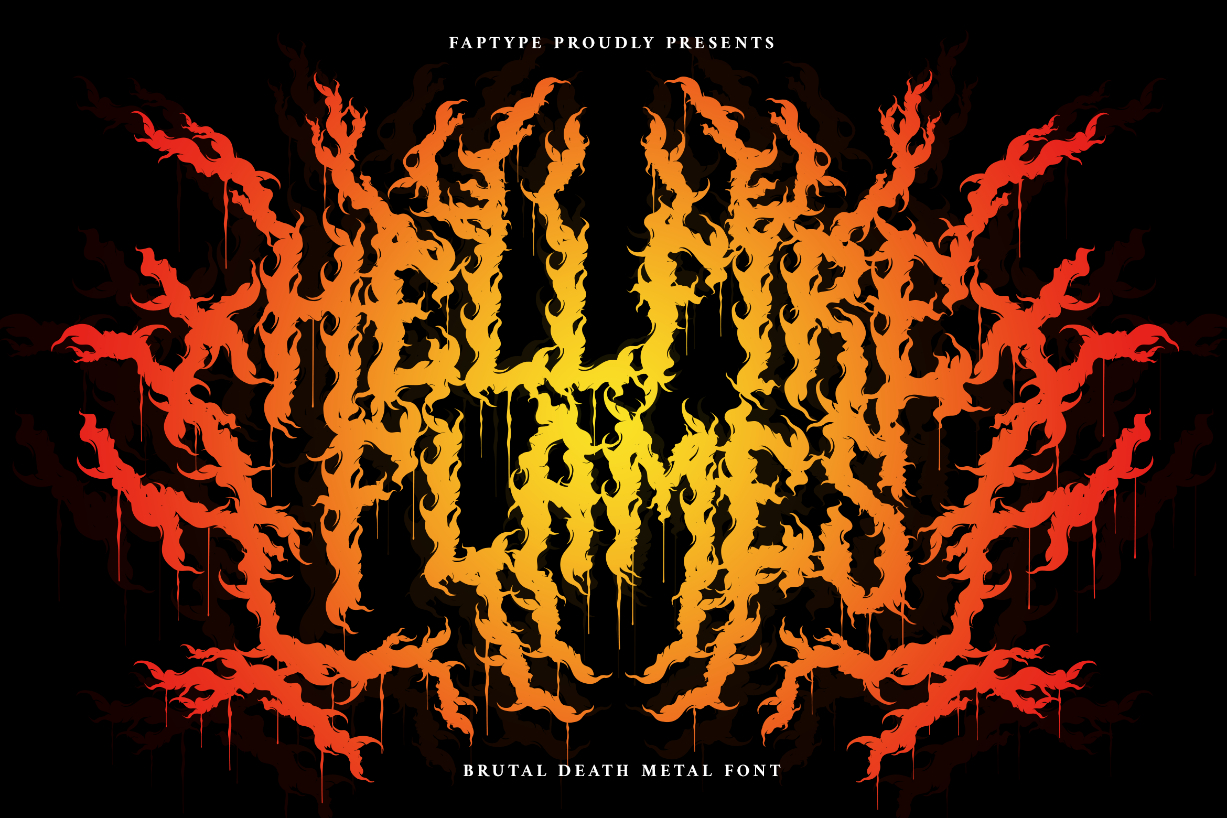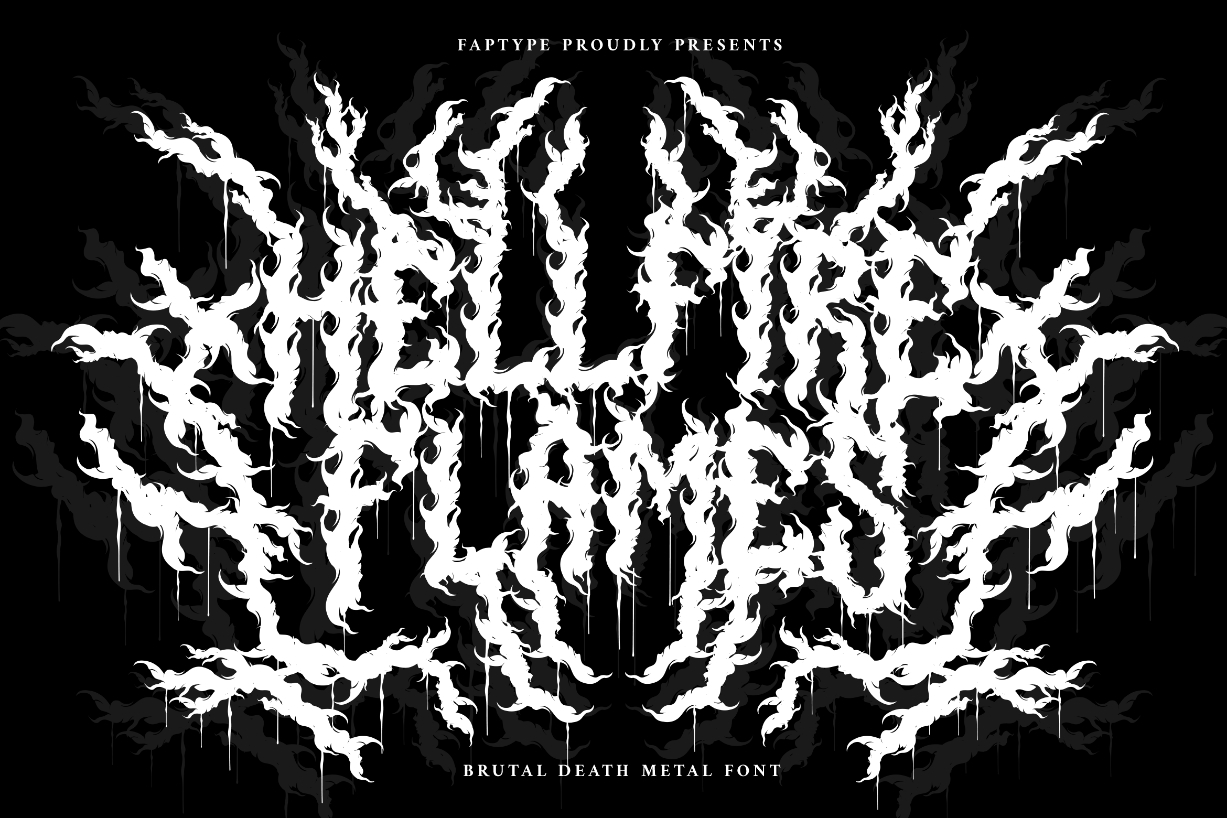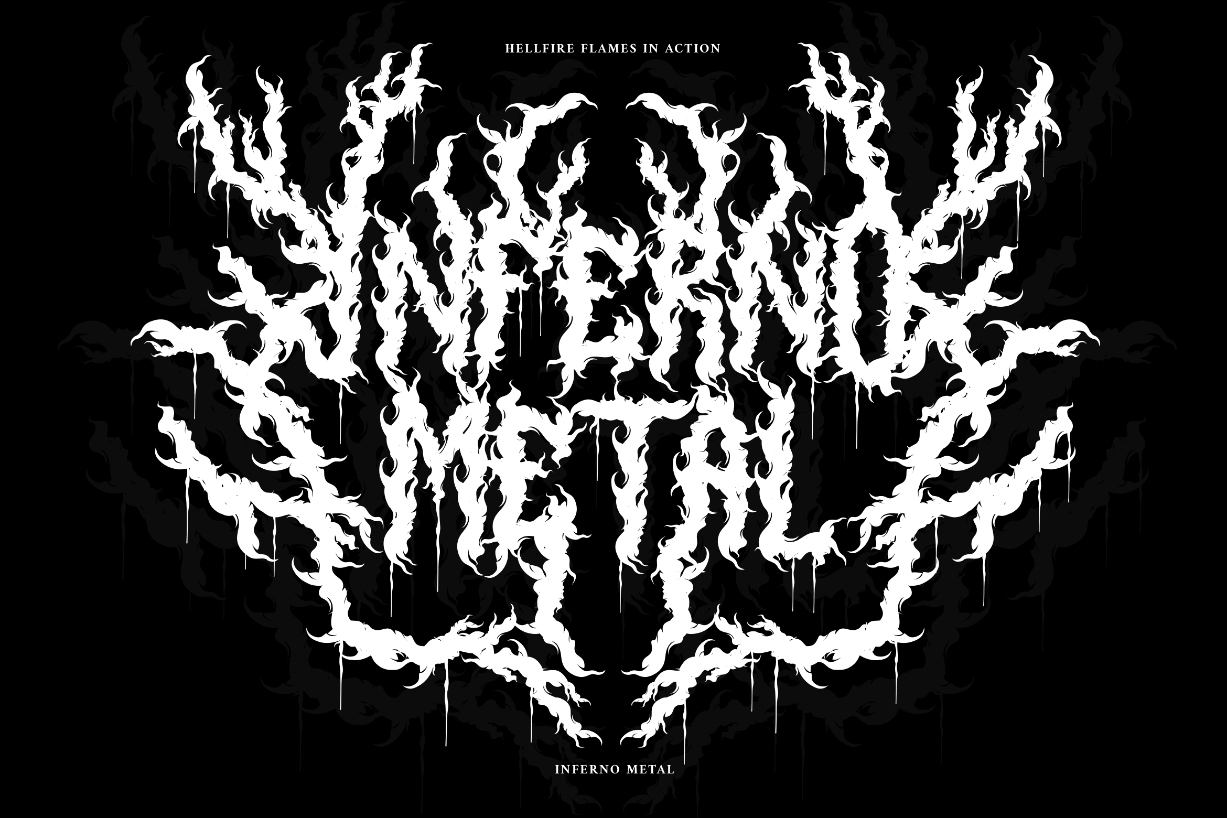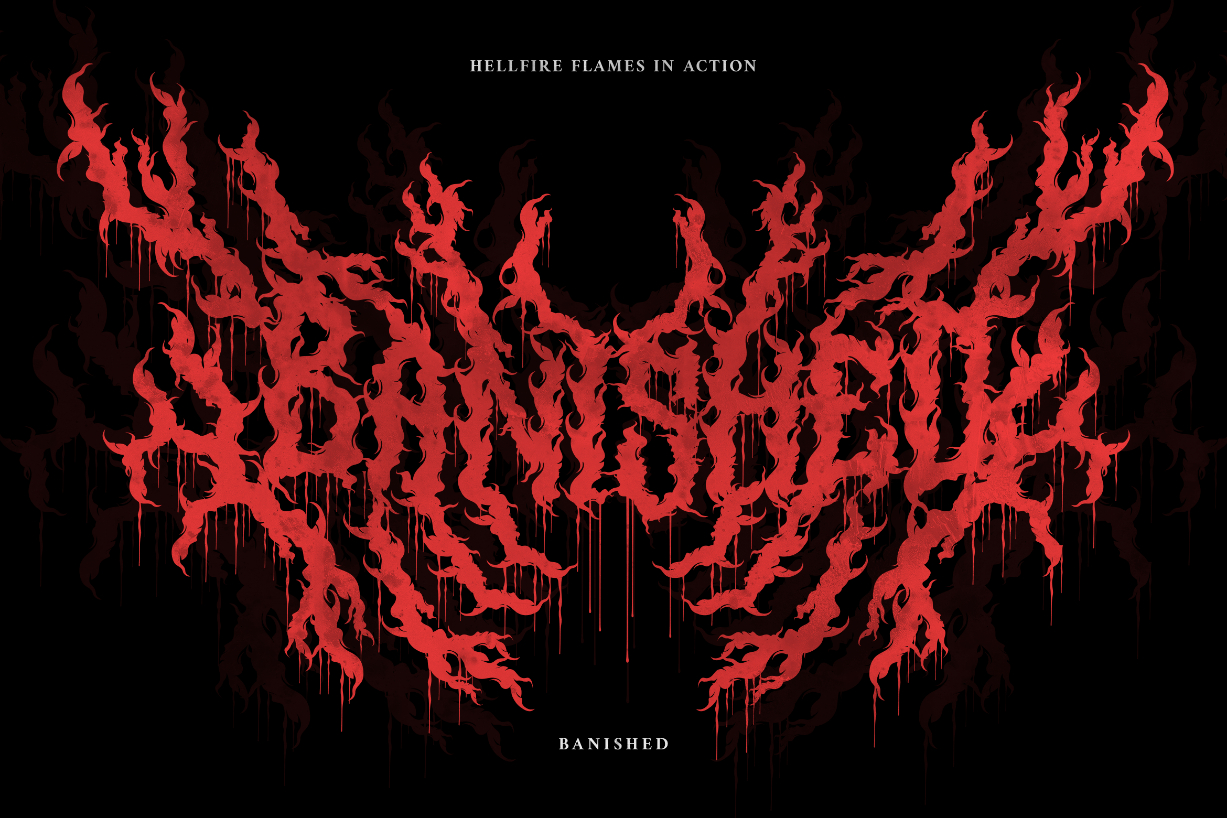
About Hellfire Flames Font
Hellfire Flames is a death metal font that embodies the essence of infernal power and brutal energy. The font’s letters take the shape of black flames, with a raw and aggressive design that will leave a lasting impression. Hellfire Flames is perfect for anyone looking to add a touch of darkness and aggression to their design projects.